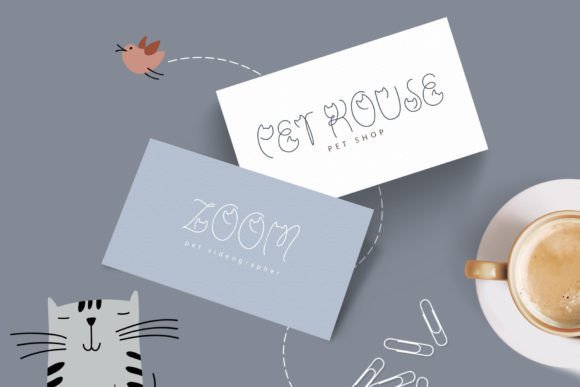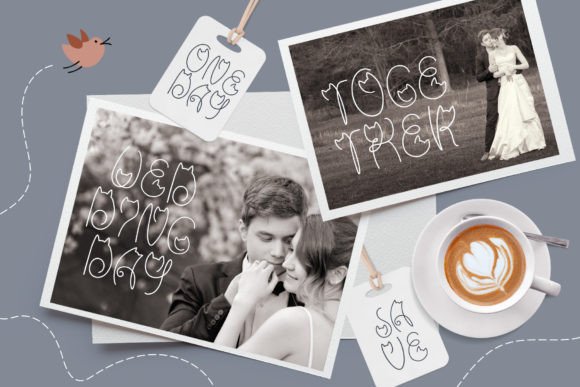
Cute Cat Font
Cute Cat is a stunning display font that embodies the beauty of uniqueness. Its intricate curves and flourishes draw inspiration from floral motifs, adding a touch of whimsy to any design. With its delicate yet bold presence, this font is perfect for invitations, posters, and branding that seeks to stand out.